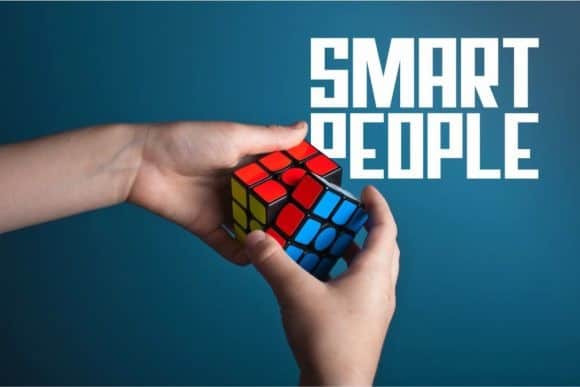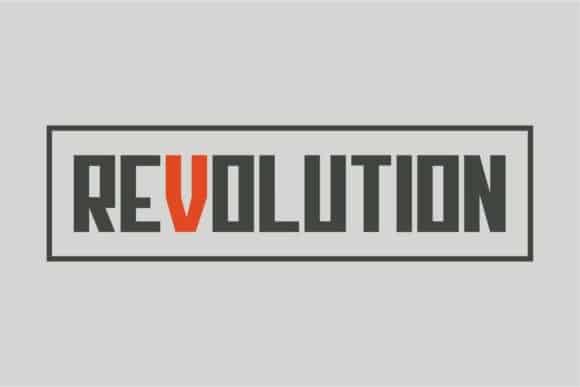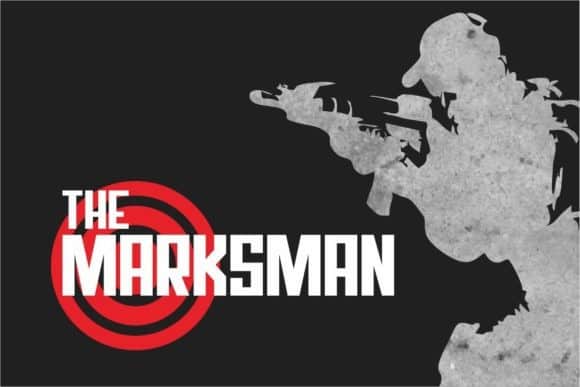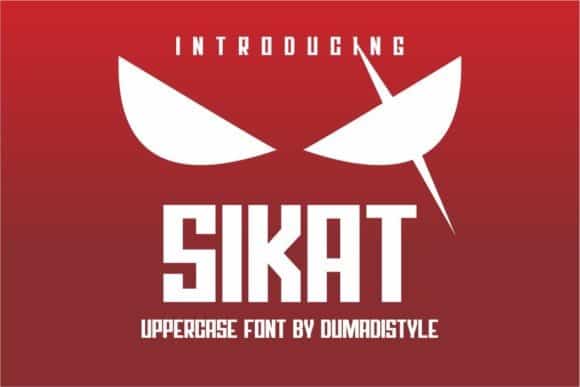
Sikat Display Font is an elegant modern sans serif display for creating type compositions in your designs. Use it in posters and headlines to make a memorable first impression. Especially good for headlines, signs, branding and packaging designs.